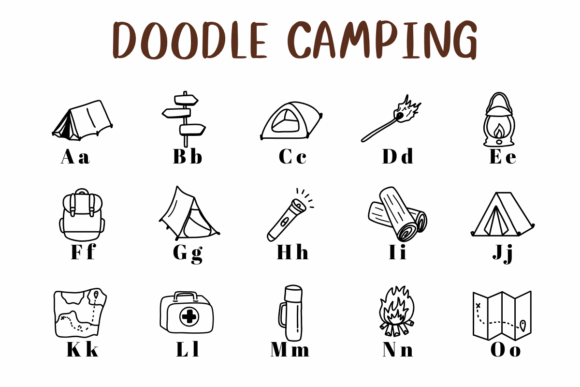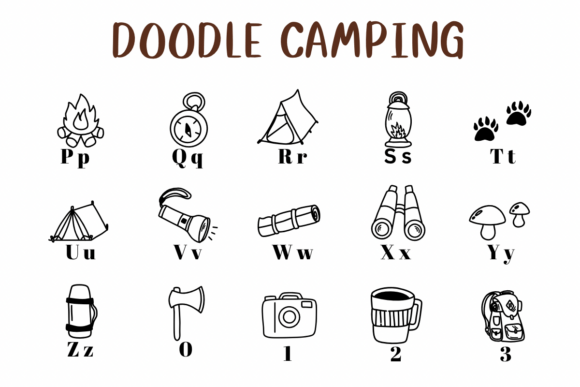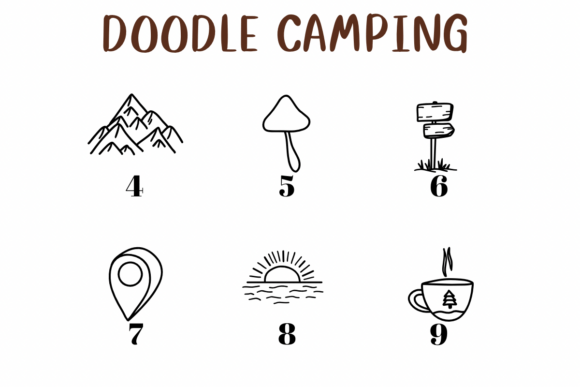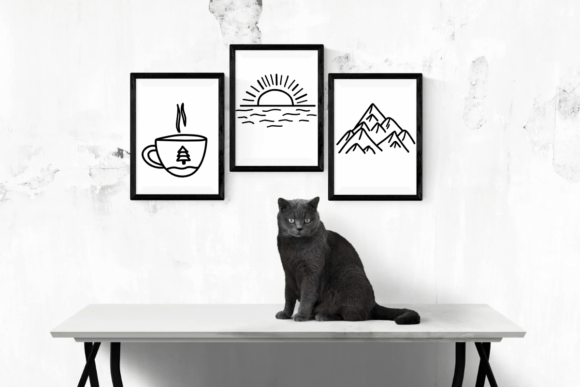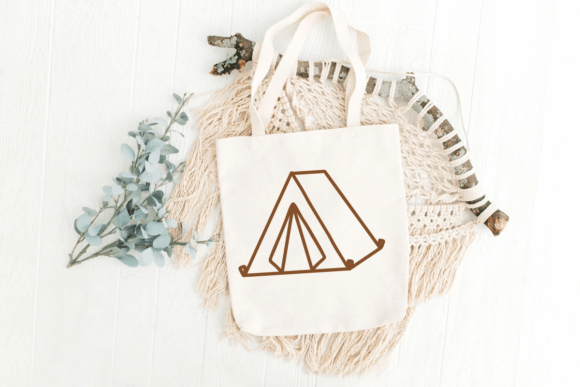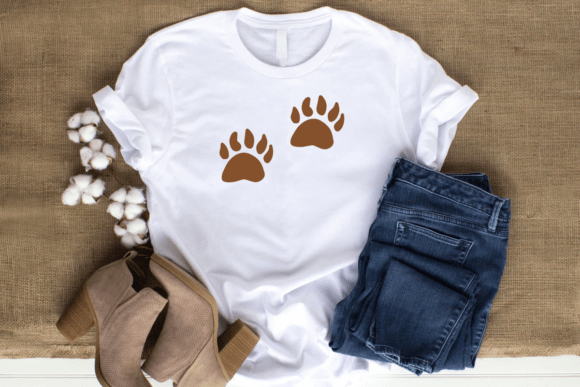
Doodle Camping Font: The Ultimate Design Companion for Outdoor Enthusiasts
Are you a designer or crafter looking for a unique and adventurous font to elevate your nature-themed projects? Look no further than the Doodle Camping Font! This rustic and charming dingbat font is packed with hand-drawn outdoor icons that will add a touch of whimsy and excitement to your designs.
What is Doodle Camping Font?
Doodle Camping Font is a carefully crafted dingbat font featuring a wide range of outdoor icons, including tents, campfires, flashlights, maps, and more. Each icon is meticulously hand-drawn to give the font a rustic and adventurous feel that’s perfect for camping gear branding, adventure invitations, and nature-themed projects.
Key Features of Doodle Camping Font
- Hand-drawn outdoor icons: The font features a variety of hand-drawn icons that are sure to add a touch of personality to your designs.
- Rustic and adventurous feel: The font’s rustic and adventurous feel makes it perfect for nature-themed projects and camping gear branding.
- Dingbat font: The font is a dingbat font, which means it’s made up of icons rather than traditional letters and numbers.
Uses for Doodle Camping Font
Doodle Camping Font is the perfect design companion for a wide range of projects, including:
- Camping gear branding: Use the font to create custom logos and branding for camping gear companies.
- Adventure invitations: Add a touch of adventure to your invitations with the font’s hand-drawn outdoor icons.
- Nature-themed projects: Use the font to add a rustic and adventurous feel to nature-themed projects, such as brochures, posters, and flyers.
- Outdoor enthusiast websites: Use the font to create custom graphics and icons for outdoor enthusiast websites.
Why Choose Doodle Camping Font?
There are many reasons to choose Doodle Camping Font for your next project. Here are just a few:
- Unique and eye-catching: The font’s hand-drawn outdoor icons are sure to grab attention and add a touch of personality to your designs.
- Versatile: The font can be used for a wide range of projects, from camping gear branding to adventure invitations.
Tips for Using Doodle Camping Font
Here are a few tips for getting the most out of Doodle Camping Font:
- Experiment with different colors: The font’s hand-drawn icons look great in a variety of colors, so don’t be afraid to experiment and find the perfect color scheme for your project.
- Mix and match icons: The font features a wide range of icons, so try mixing and matching them to create unique and interesting designs.
- Use the font to add a personal touch: The font’s rustic and adventurous feel makes it perfect for adding a personal touch to your designs.
Doodle Camping Font is a unique and versatile dingbat font that’s perfect for designers and crafters who love the outdoors. With its hand-drawn outdoor icons and rustic and adventurous feel, it’s the perfect design companion for nature-themed projects, camping gear branding, adventure invitations, and more. So why wait? Download Doodle Camping Font today and start adding a touch of whimsy and excitement to your designs!